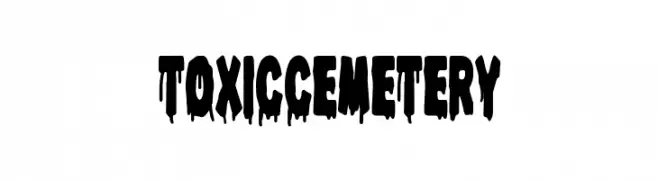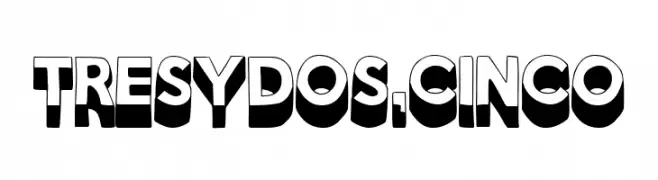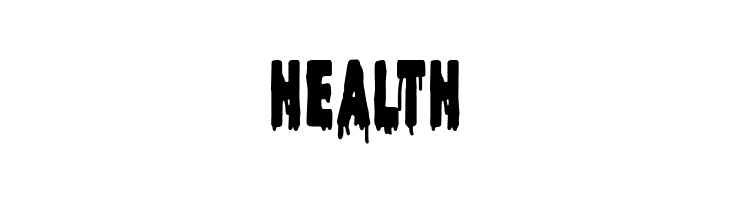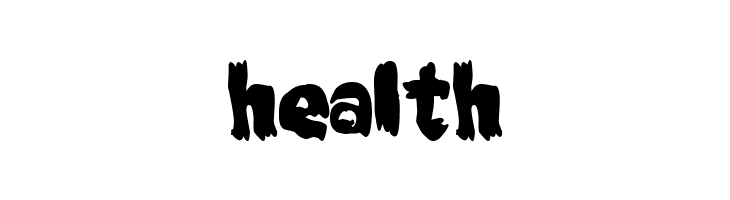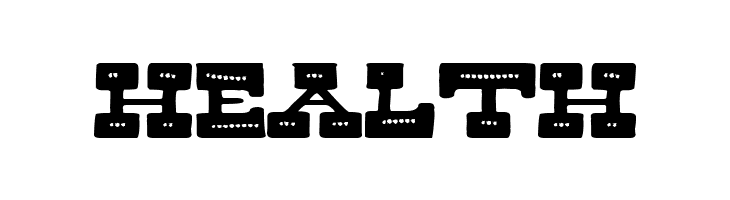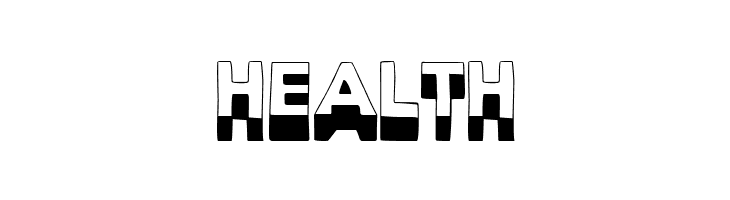
A bold, toxic-themed display font with irregular, dripping shapes.
Bold, distressed slab serif with a vintage Western feel.
Bold slab serif with vintage, hand-crafted style and shadow effects.
A bold, dripping horror-themed display font with a melting effect.
Aggressive, heavy metal-inspired display font with sharp, irregular forms.
Bold 3D display font with comic-style shading and strong outlines.
Bold 3D sans-serif font with strong shadows and playful style.
Bold, blocky display font with dotted cutouts and slab serifs.
Bold, outlined geometric display font with sharp angles and double-line effect.
Bold, 3D outlined display font with a retro feel.